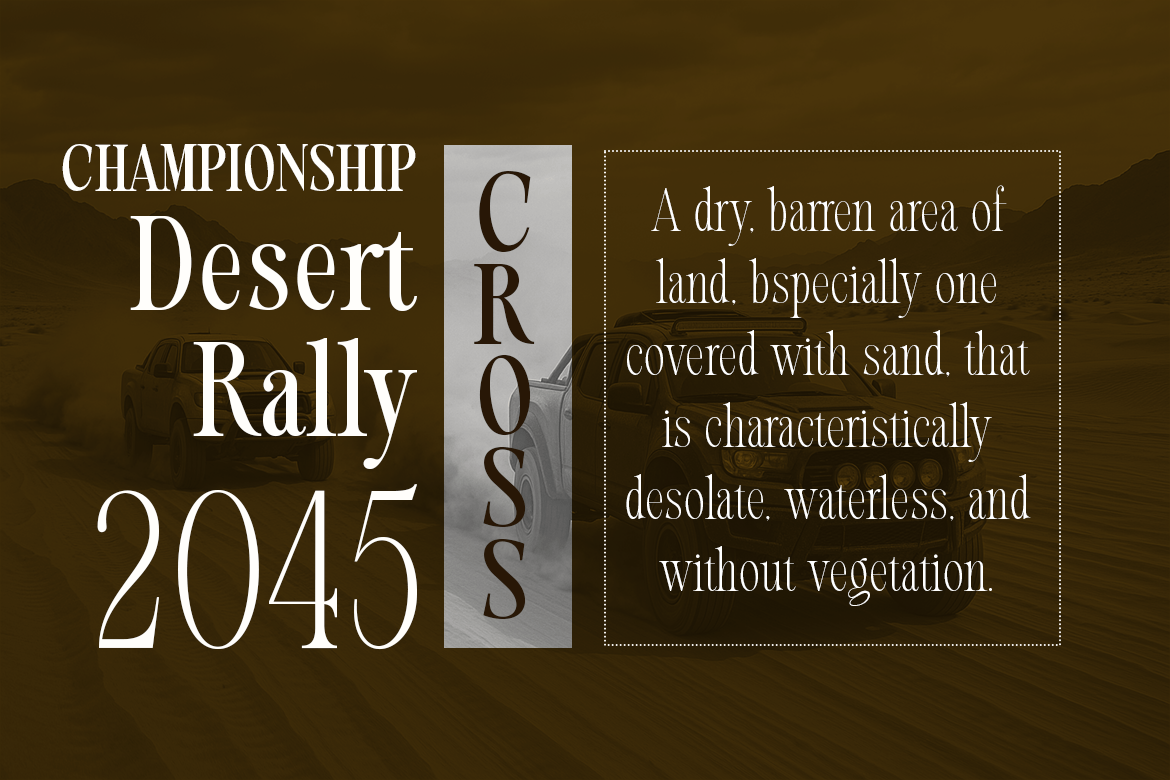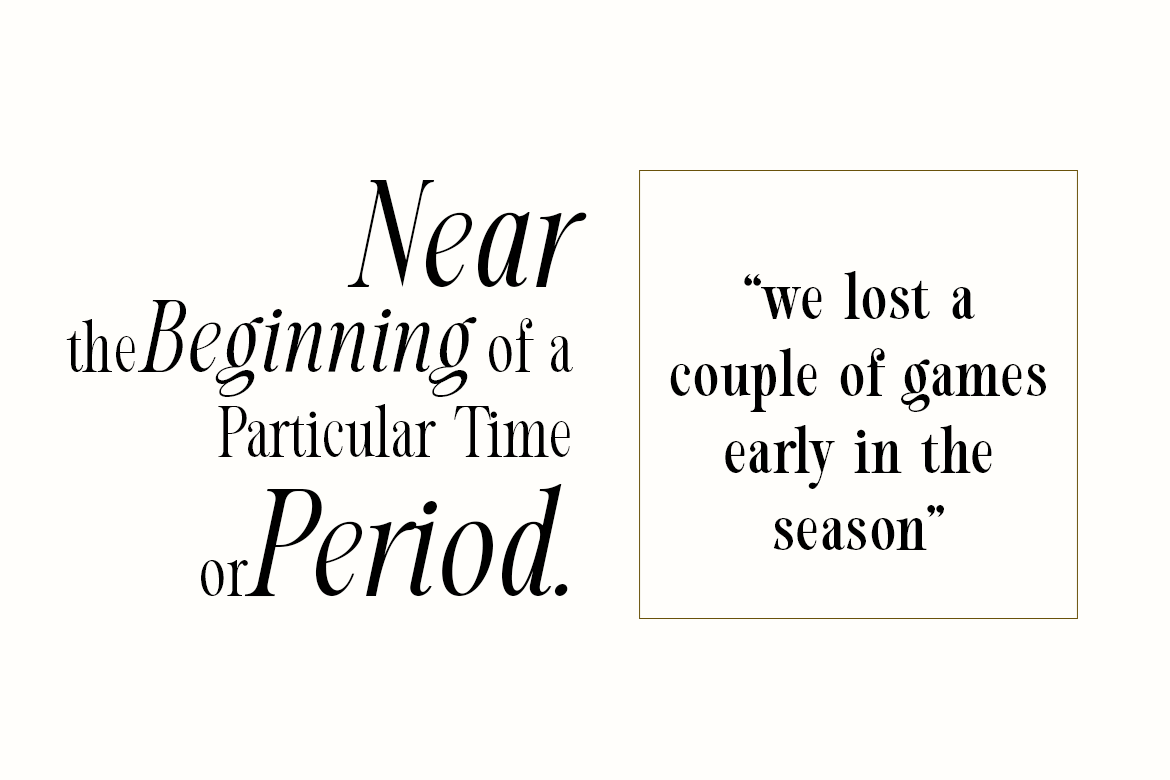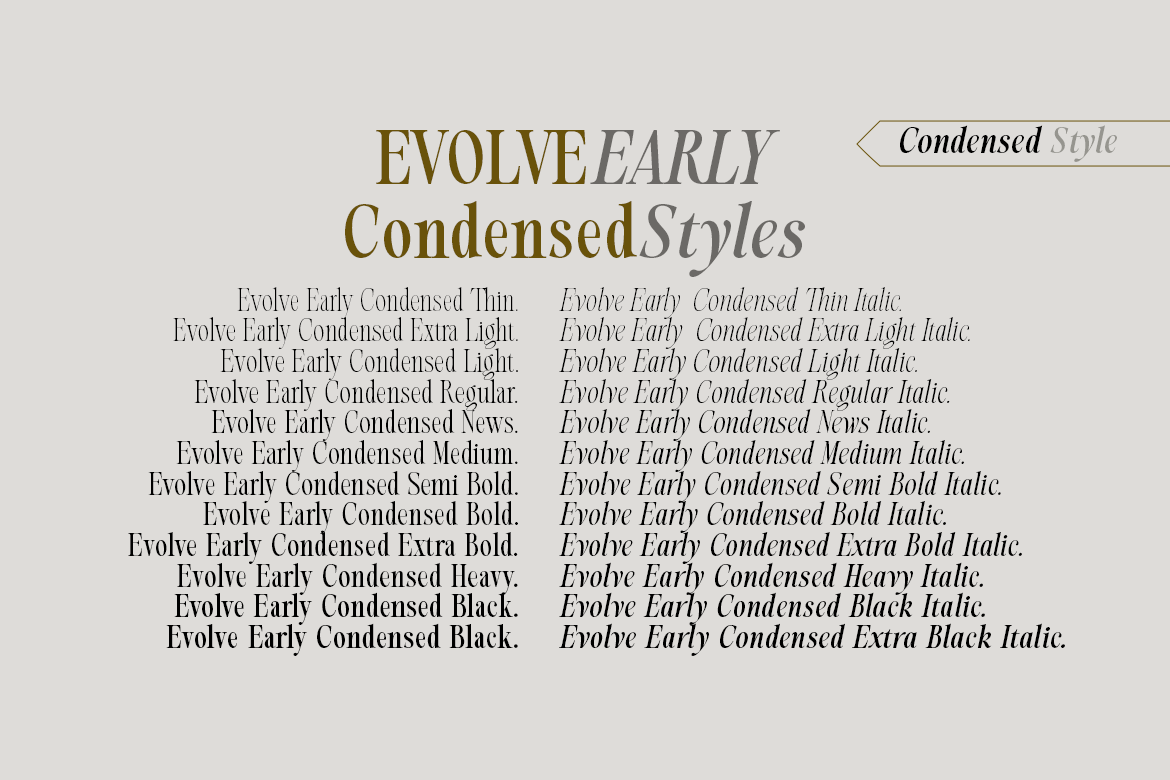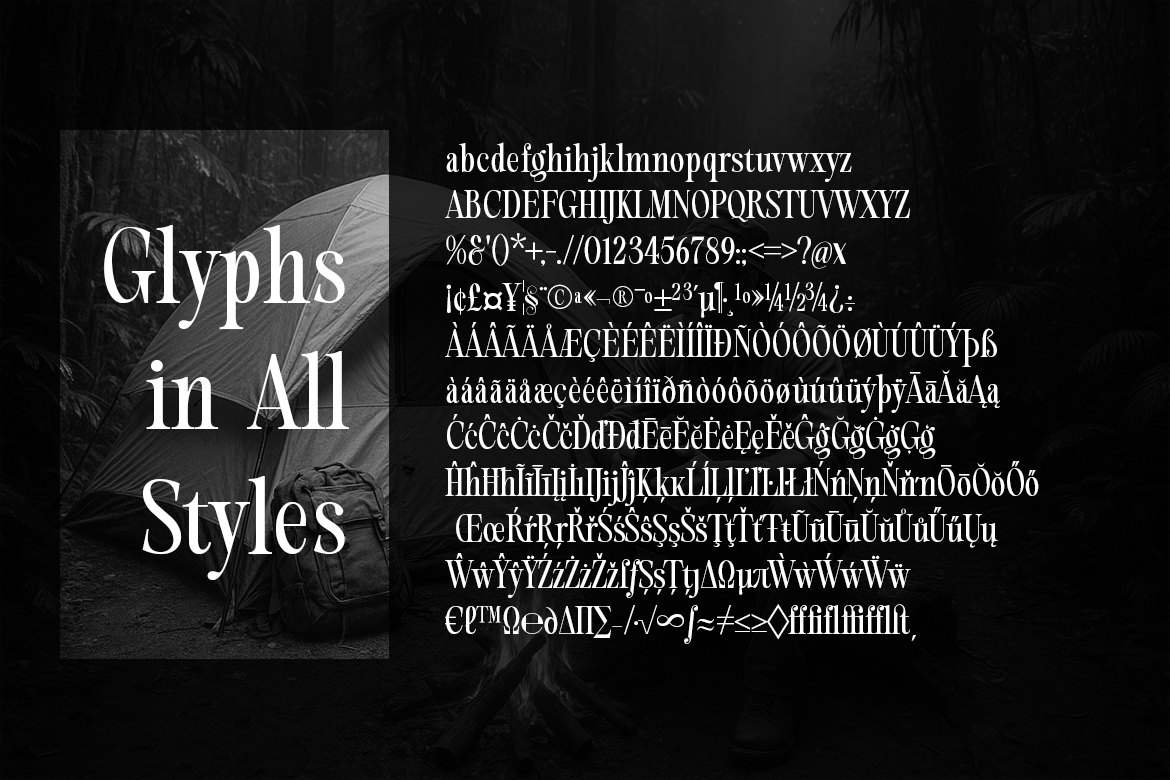
Evolve Early Condensed
Evolve Early Condensed — Narrow Serif Font Family
Evolve Early Condensed is a compact, space-efficient serif family crafted for strong, dynamic, and high-density typographic layouts. With 24 styles—from Thin to Extra Black, each with a dedicated italic—it excels in posters, magazine systems, dramatic titles, and tight editorial grids.
Its narrow forms increase vertical energy and create a powerful visual rhythm, allowing designers to deliver impact even in limited space. The contrast is elegant yet controlled, making it suitable for both expressive display work and compact text settings.
A bold and efficient serif family designed for designers who need maximum impact in minimal space.